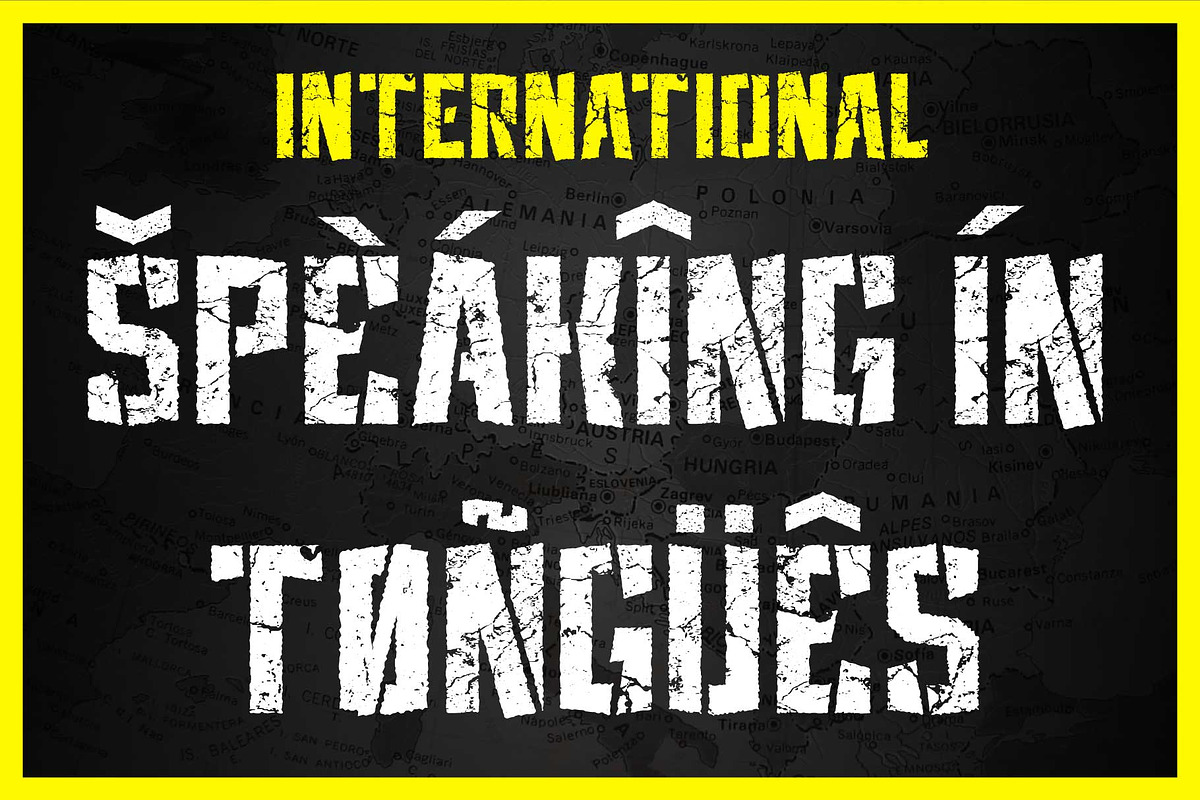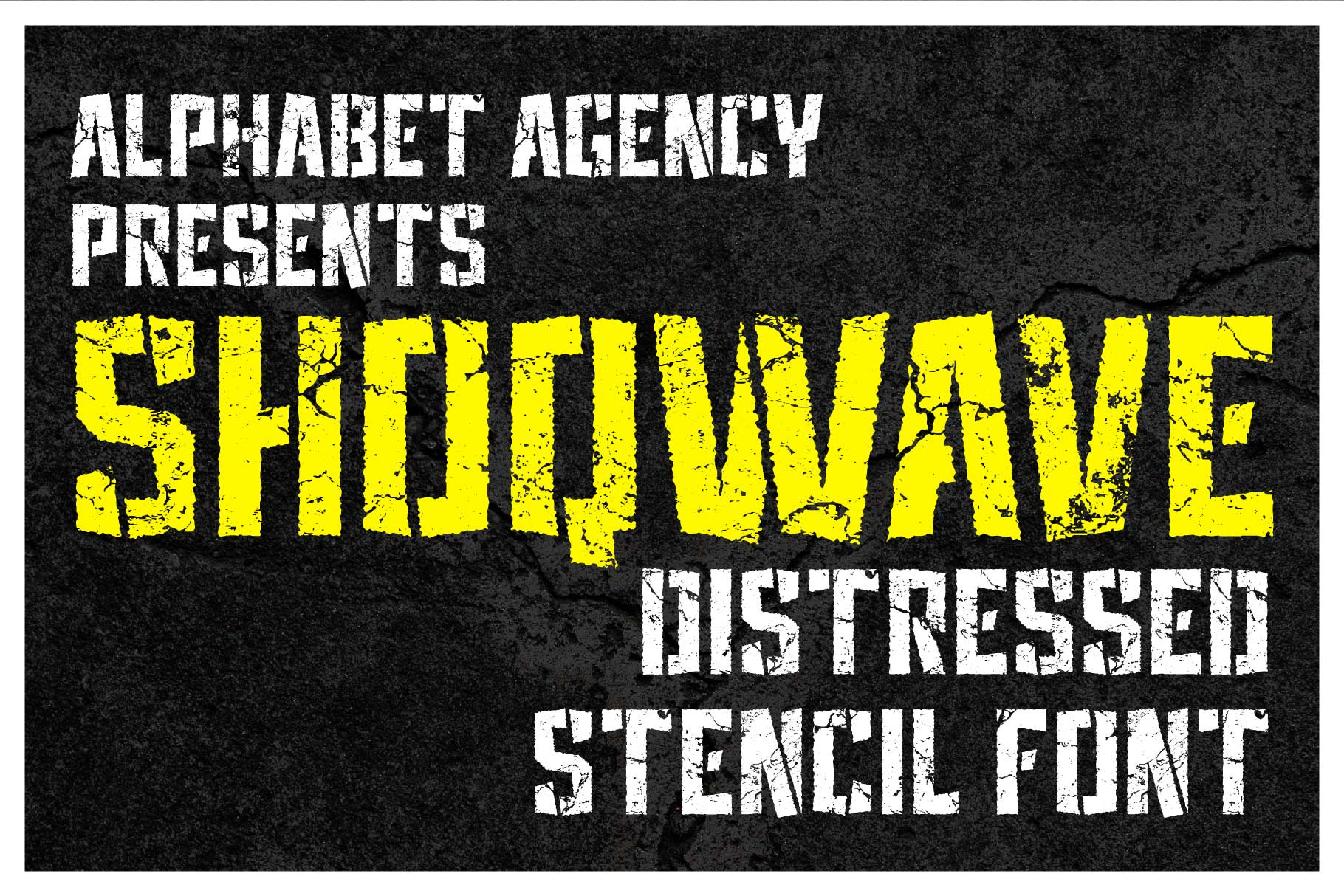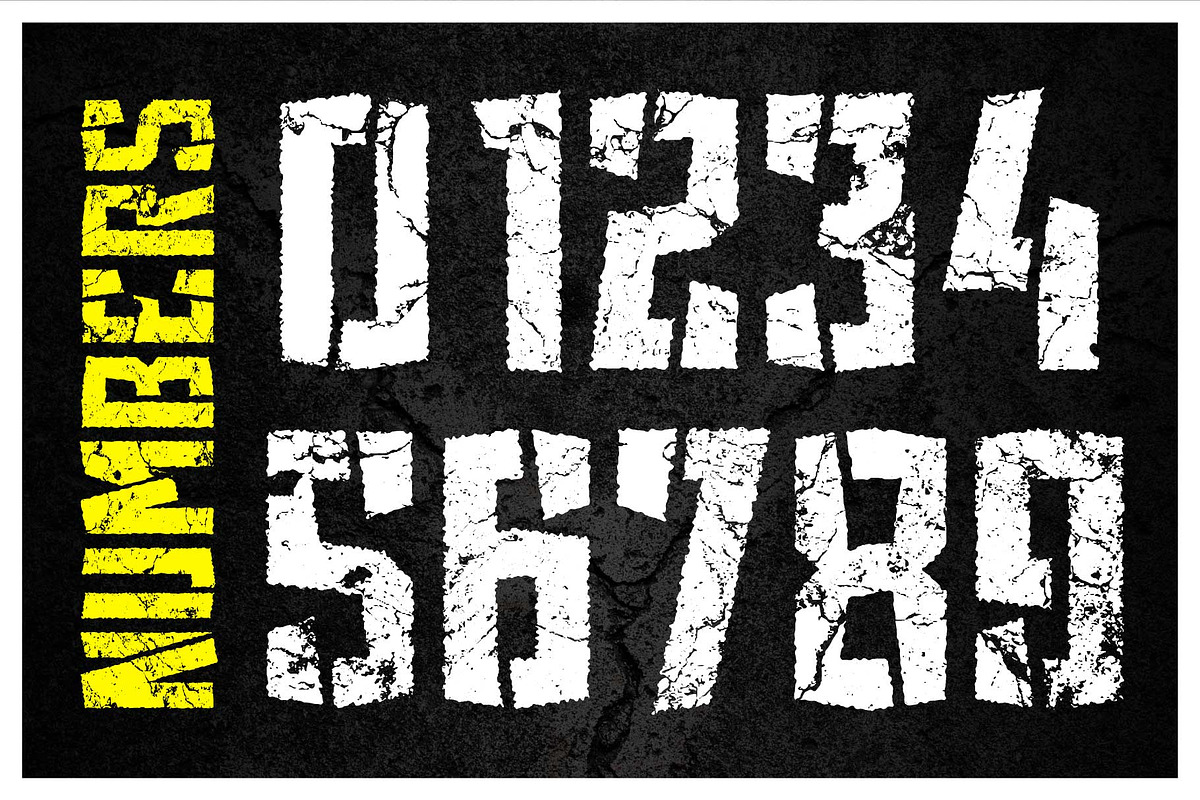
SHOQWAVE DISTRESSED STENCIL FONT
Alphabet Agency proudly presents Shoqwave, a distressed stencil font. The font has been designed in a unique military stencil style with an awesome distressed effect.
Shoqwave is great for use in war, crime, urban, and combat sports related themes.
The font contains capital and alternative capital letters, numbers, punctuation and basic Latin international characters.